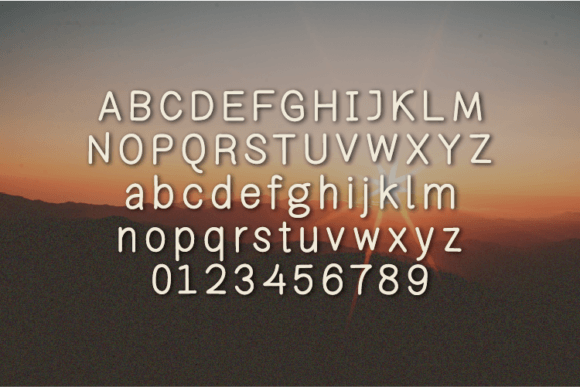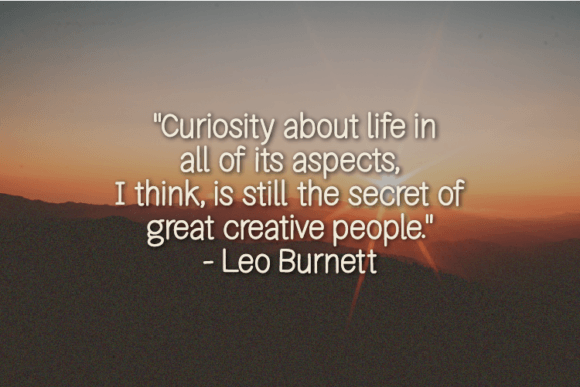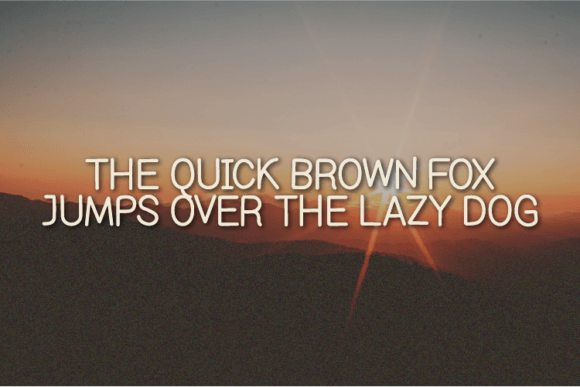
Unlock Your Creative Potential with the Innovative Font
Have you ever been stuck on a design project, staring blankly at your screen, searching for that perfect font to bring your vision to life? We’ve all been there. It’s the moment when you’re about to give up, but then something sparks, and suddenly, the right font appears. For designers, this moment is a game-changer.
Enter the Innovative Font, a casual and neat sans serif font that effortlessly elevates your craft. With its natural and elegant style, this typeface is the perfect companion for any design project. Whether you’re a seasoned pro or a newcomer to the world of design, the Innovative Font is an invaluable asset that will help your product stand out from the competition.
Innovative Font Key Features
- Unique Characteristics: Features a distinctive, modern design with subtle flair and personality, perfect for creative and innovative projects.
- Kerning and Ligatures: Includes advanced kerning and ligature features, ensuring beautiful and professional typography.
Designer Review: Innovative Font
At first glance, Innovative Font seems like a game-changer. The unique blend of futuristic and minimalist styles is sure to grab attention. Here’s what I think:
- ✨ Unconventional design – This font’s bold and quirky style sets it apart from more traditional fonts.
- ✨ Legibility – Despite its unusual shape, Innovative Font is surprisingly easy to read, even at smaller sizes.
- ✨ Customization options – The font’s creator offers a range of customization options, from size and color to spacing and kerning.
- ⚠️ Consistency issues – I’ve noticed that the font’s spacing and kerning can be inconsistent, especially when used in long blocks of text.
- ⚠️ Compatibility issues – Some users have reported problems with the font displaying correctly on certain operating systems or browsers.
Overall, I think Innovative Font has a lot of potential, but it still needs some refinement to reach its full potential. With some tweaks to address the consistency and compatibility issues, I believe this font could become a real showstopper.
Use the Innovative Font to create visually appealing headings and titles. Experiment with different font sizes, colors, and styles to add emphasis and create a unique design.
The Innovative Font is ideal for creative projects, such as brochures, flyers, and social media graphics. It’s also suitable for presentations, reports, and other formal documents where a touch of elegance is desired.